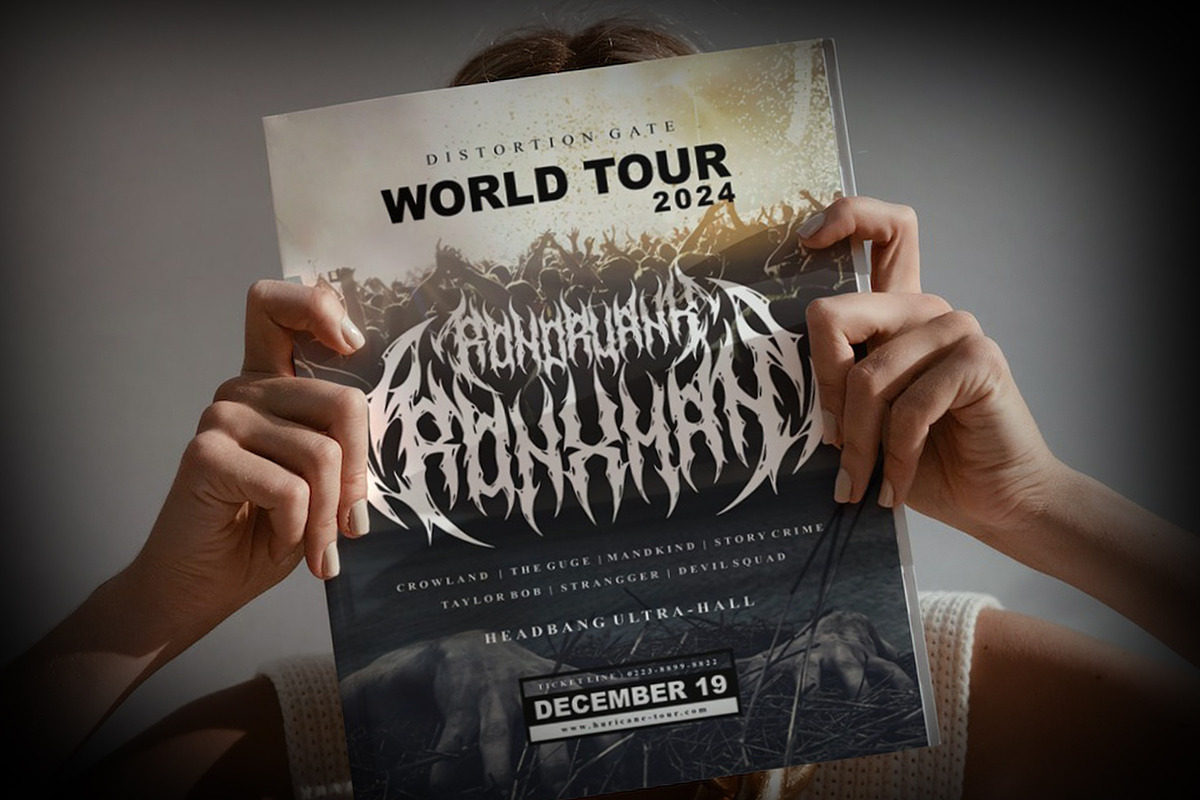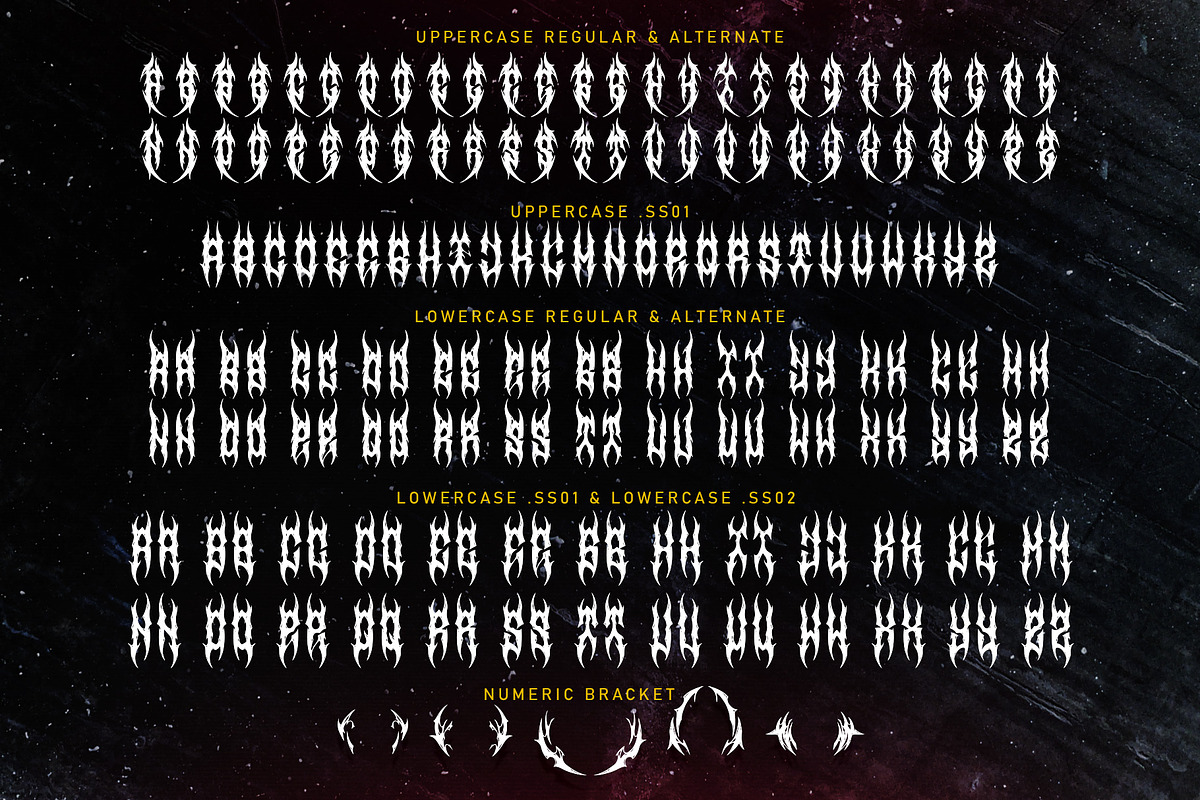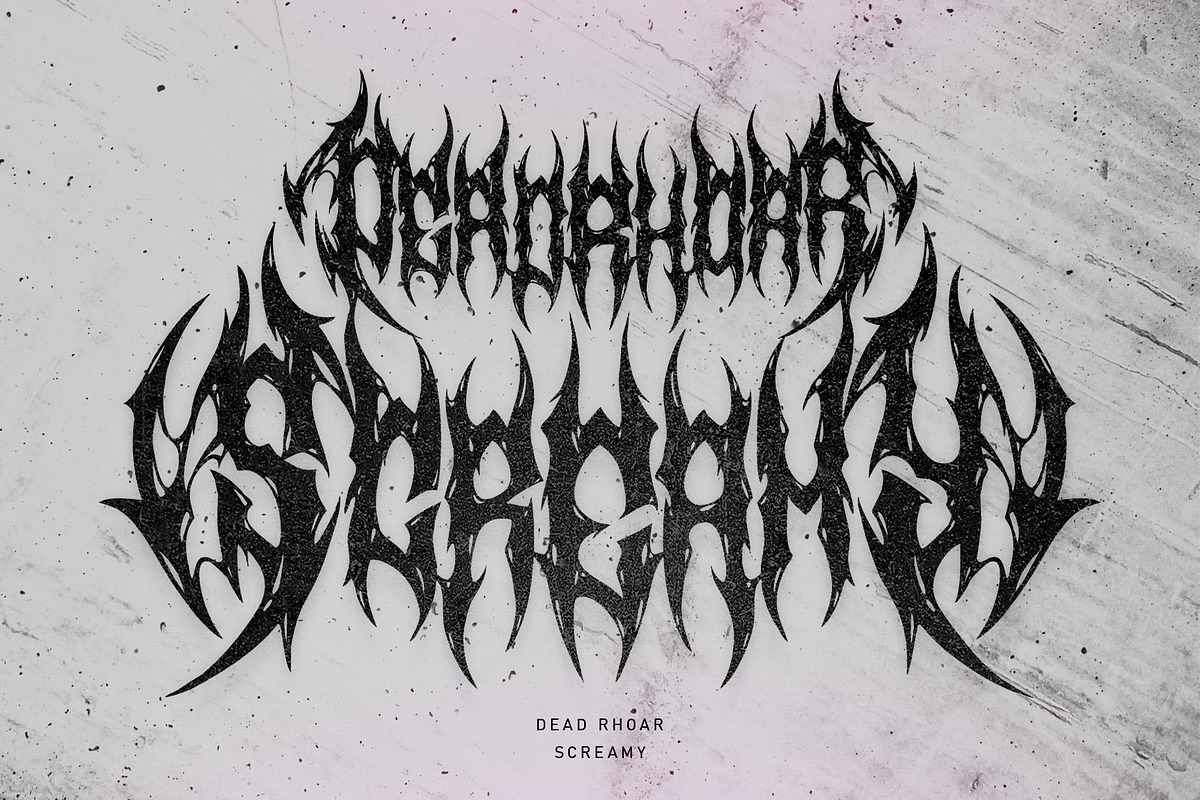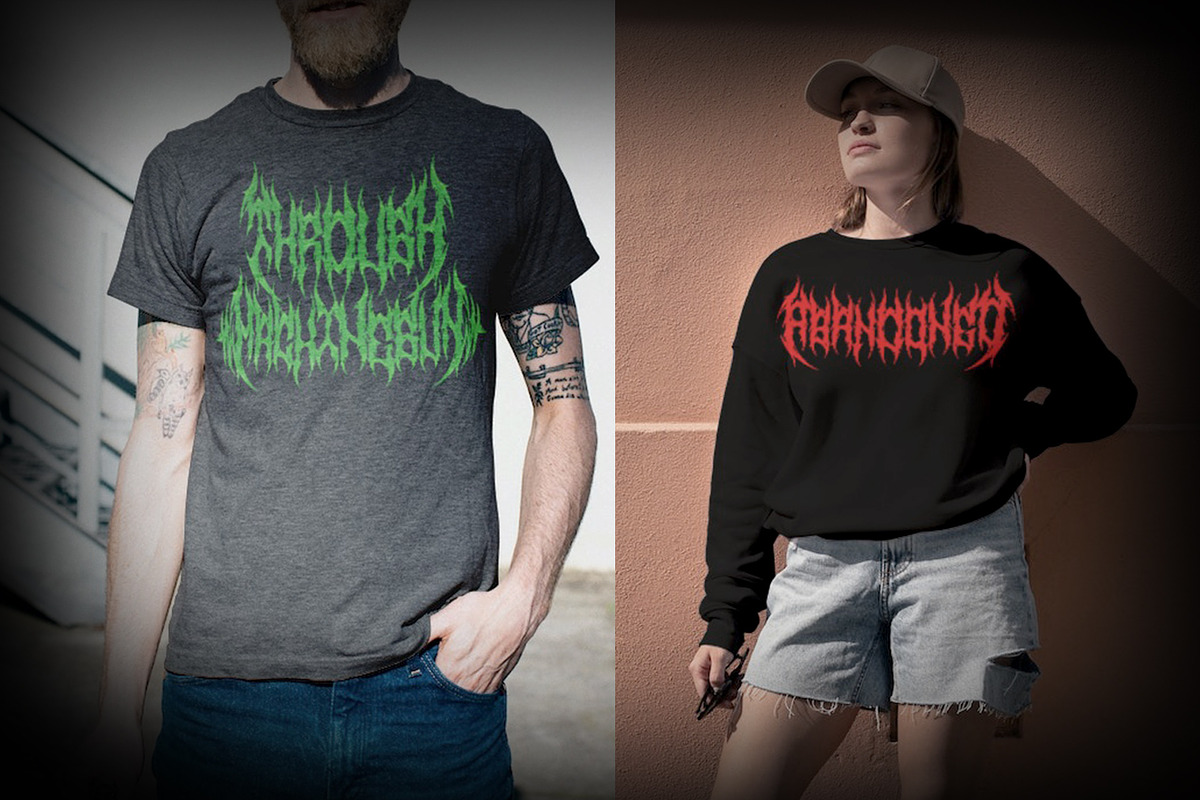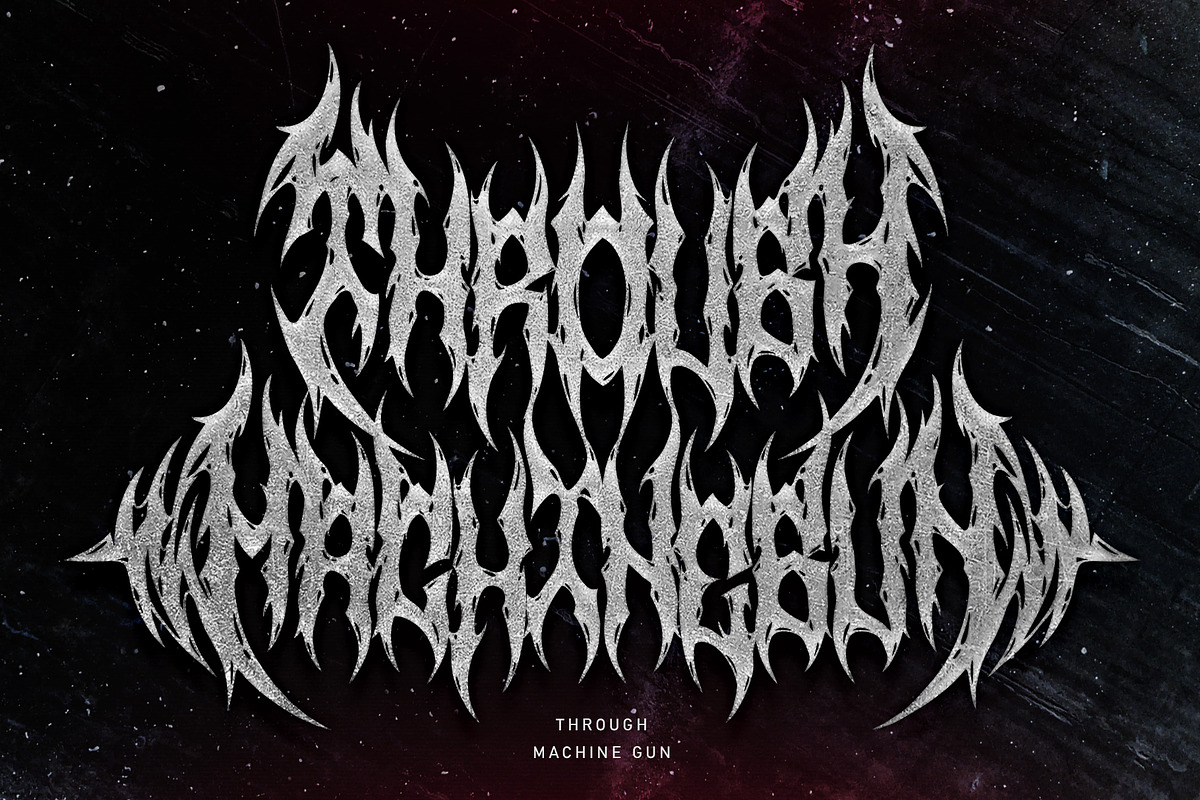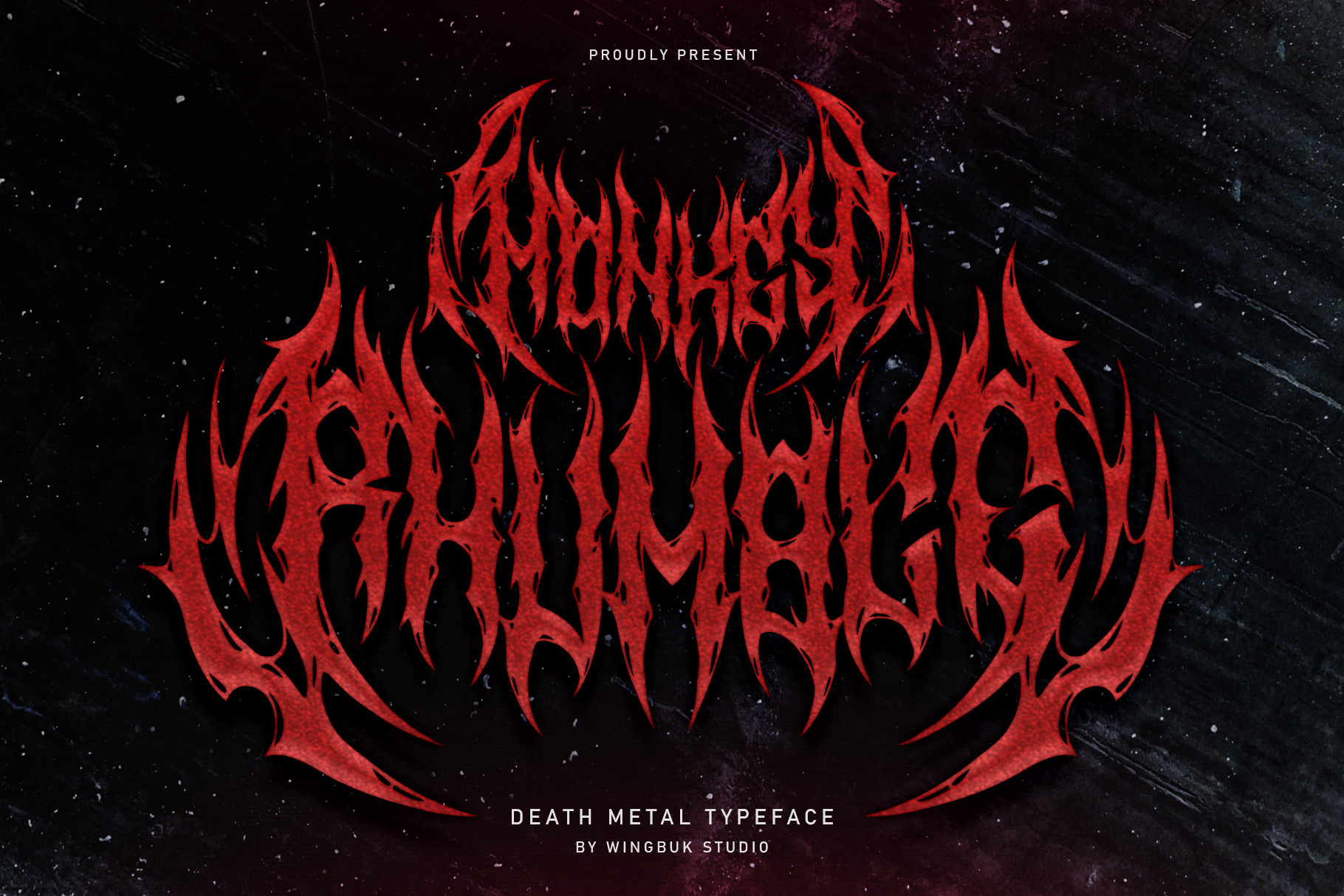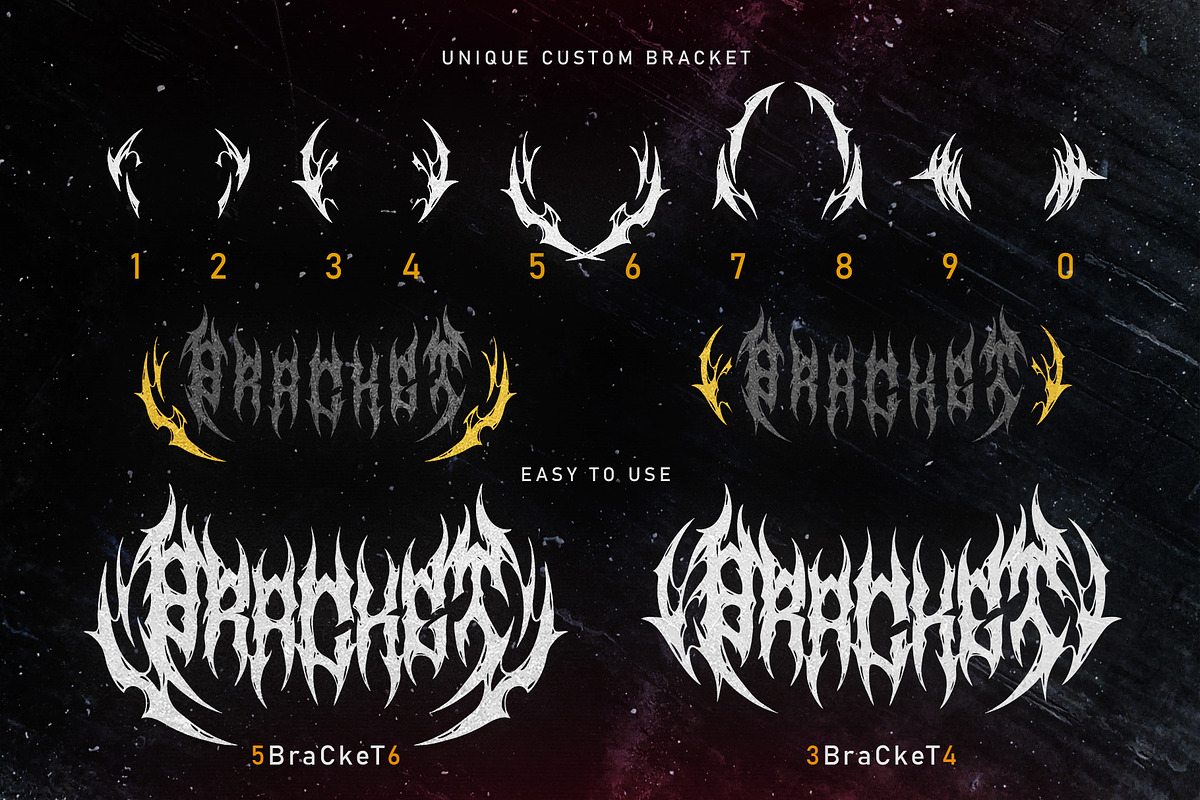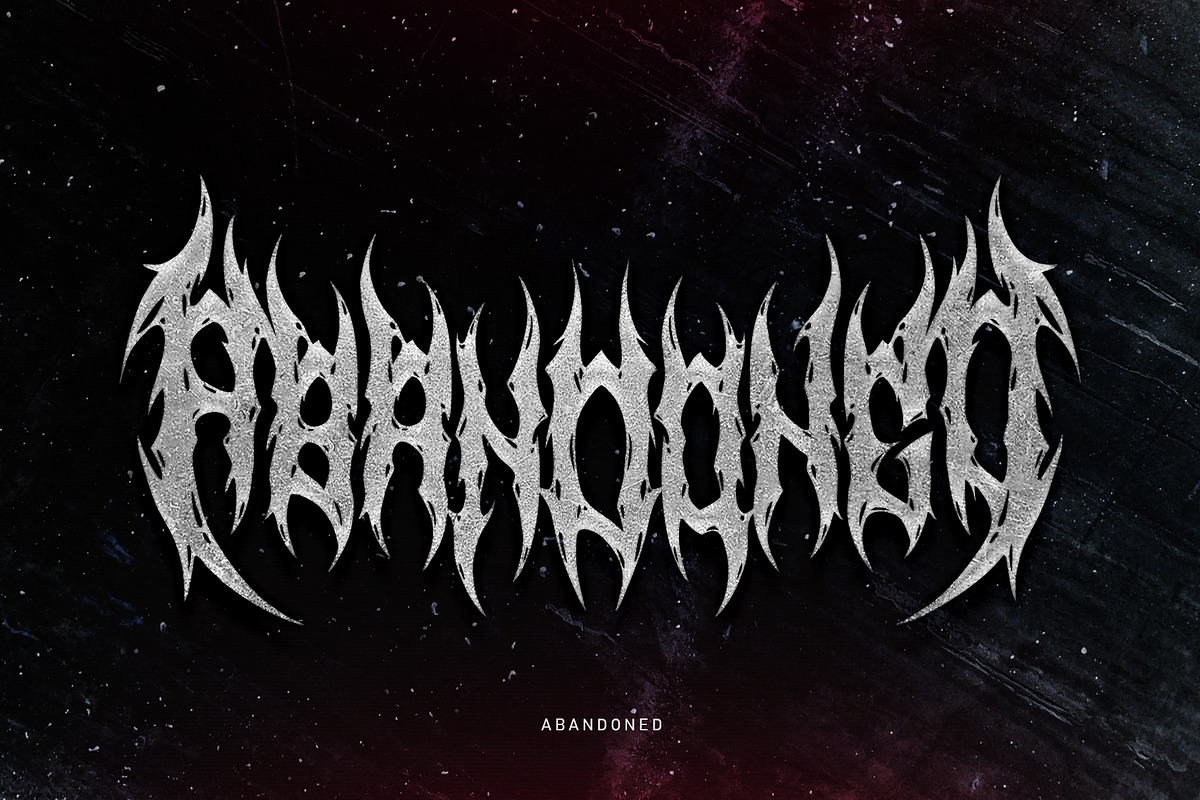
Monkey Rhumble | Metal Font
Monkey Rhumble is an exclusive piece made with a touch of darkness, featuring a heavy and death metal feel to compliment your design. Monkey Rhumble is very easy to use in any variation or writing combination with extra custom bracket, also perfect for metal band logos, merchandise, clothing, apparel, or anything else that calls for a metal feel.